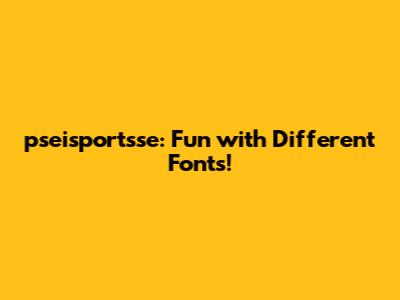
Hey guys! Ever wondered how cool a word or name can look when you mess around with different fonts? Let's take "pseisportsse" for a spin and see the magic that happens when typography meets creativity! This article is all about exploring the various font styles and how they can transform a simple string of letters into something eye-catching and unique. Whether you're a designer, a student, or just someone who loves playing around with text, this is going to be a fun ride. So buckle up, and let's dive into the world of fonts!
Why Fonts Matter
Fonts, or typefaces, are more than just how letters look; they carry personality and emotion. Different fonts can evoke different feelings, from seriousness and professionalism to playfulness and creativity. Think about it: the font used in a legal document is vastly different from the one used in a children's book, right? Each font has its own unique characteristics, including its weight (how thick the lines are), its style (like italic or bold), and its overall design.
Fonts play a huge role in branding and marketing. A well-chosen font can make a brand instantly recognizable and can communicate the brand's values and message. For example, a company that wants to be seen as modern and innovative might choose a sleek, sans-serif font, while a company that wants to convey tradition and elegance might opt for a classic serif font. When you're designing a logo, a website, or any kind of marketing material, the font you choose is just as important as the colors and images you use.
In digital design, fonts can significantly impact the user experience. Readability is key; if a font is too difficult to read, people will quickly lose interest and leave. That's why it's important to choose fonts that are clear and legible, especially for body text. Also, the font should be appropriate for the screen size and resolution. A font that looks great on a desktop computer might not look so good on a mobile device. Using the right font can make your website or app more user-friendly and engaging, and that can lead to more traffic and conversions.
Choosing the right font can really set the tone for whatever you're working on. Fonts influence readability, aesthetics, and the overall message you're trying to convey. For "pseisportsse," exploring different fonts can show how versatile this name can be. Whether you're going for something bold and impactful or elegant and understated, the right font can make all the difference!
Exploring Font Categories
When it comes to fonts, there's a whole universe of options out there! But generally, we can break them down into a few main categories: Serif, Sans-Serif, Script, and Decorative. Understanding these categories can help you choose the right font for your project and give "pseisportsse" the perfect look.
Serif Fonts
Serif fonts are characterized by the small decorative strokes, or serifs, at the end of each letter. These fonts are often seen as traditional, elegant, and authoritative. Think of fonts like Times New Roman, Georgia, and Garamond. Serif fonts are great for body text because the serifs help guide the eye along the line, making it easier to read long passages. Imagine "pseisportsse" in a classic serif font – it could give it a sense of timelessness and sophistication. For example, using Garamond could lend a touch of elegance, making it feel like a well-established and respected entity.
Sans-Serif Fonts
Sans-serif fonts, on the other hand, don't have those little decorative strokes. They have a cleaner, more modern look. Fonts like Arial, Helvetica, and Open Sans fall into this category. Sans-serif fonts are often used for headlines, logos, and digital displays because they're easy to read on screens. If you want "pseisportsse" to look contemporary and sleek, a sans-serif font might be the way to go. Helvetica could give it a clean, modern feel, while Open Sans might make it seem more approachable and friendly. The simplicity of sans-serif fonts makes them versatile for various applications.
Script Fonts
Script fonts are designed to mimic handwriting. They can range from elegant and formal to casual and playful. Think of fonts like Brush Script, Lucida Handwriting, and Pacifico. Script fonts are often used for invitations, greeting cards, and other decorative purposes. If you want "pseisportsse" to have a personal, hand-crafted feel, a script font could be a great choice. A formal script font could give it an air of sophistication, while a casual script font might make it seem more fun and approachable. Just be careful not to use script fonts for long passages of text, as they can be difficult to read.
Decorative Fonts
Decorative fonts are the wild cards of the font world. They're designed to be eye-catching and unique, and they come in a huge variety of styles. Some decorative fonts are retro, some are futuristic, and some are just plain weird. These fonts are best used sparingly, for headlines, logos, and other short pieces of text. If you want "pseisportsse" to really stand out, a decorative font could do the trick. Just make sure the font is appropriate for the overall tone and message. Decorative fonts can add personality and flair, but they should be used judiciously to avoid overwhelming the reader.
"pseisportsse" in Action: Font Examples
Okay, let's get down to the fun part: seeing "pseisportsse" in different fonts! I'll give you a few examples to illustrate how different font styles can change the look and feel of the name.